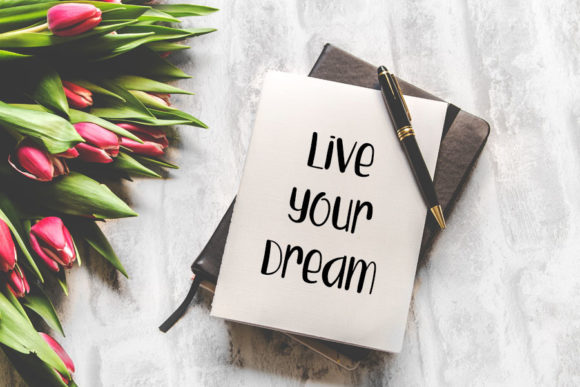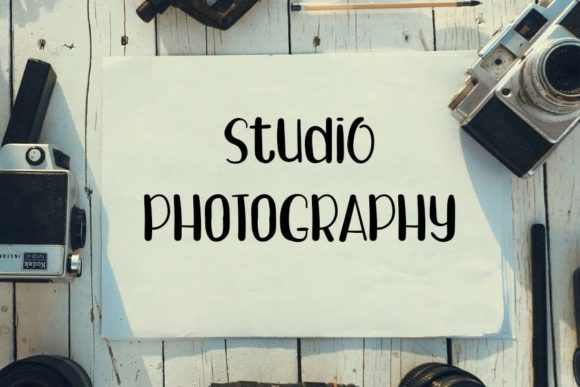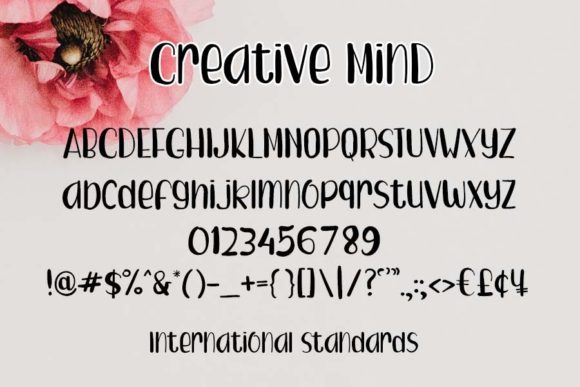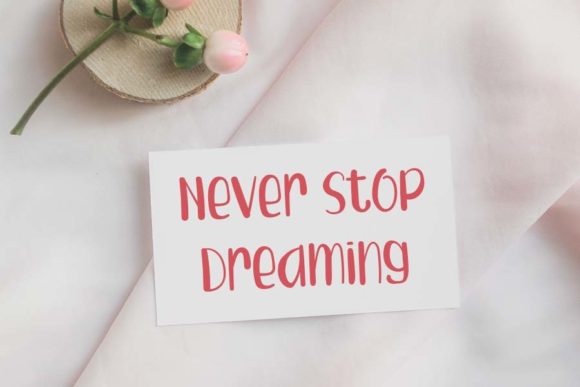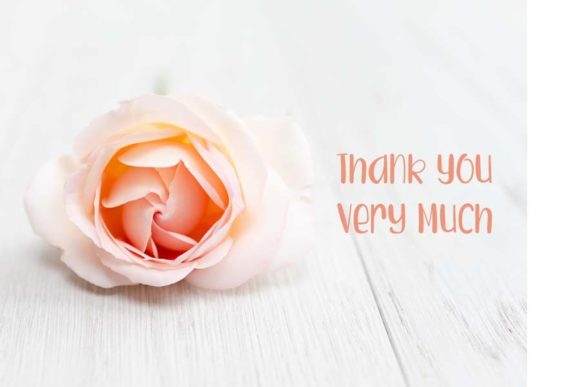
Introducing Creative Mind Font: The Ultimate Handwritten Font for Designers and Crafters
Are you tired of using the same old fonts in your designs? Do you want to add a touch of personality and whimsy to your projects? Look no further than Creative Mind Font, a cute and friendly handwritten font that’s sure to bring your designs to life.
What is Creative Mind Font?
Creative Mind Font is a unique and charming handwritten font that’s perfect for designers and crafters who want to add a personal touch to their work. With its joyful and sweet appearance, this font is ideal for a variety of design ideas, from invitations and greeting cards to branding and packaging.
Key Features of Creative Mind Font
- Cute and Friendly Design: Creative Mind Font features a playful and approachable design that’s sure to capture the attention of your audience.
- Handwritten Style: This font boasts a beautiful handwritten style that’s perfect for adding a personal touch to your designs.
- Versatile: Creative Mind Font looks great on a variety of design ideas, from digital projects to print materials.
- Easily Readable: Despite its playful design, Creative Mind Font is easy to read, making it perfect for body text and headings.
Uses for Creative Mind Font
Creative Mind Font is a versatile font that can be used in a variety of design projects, including:
- Invitations and Greeting Cards: Add a personal touch to your invitations and greeting cards with Creative Mind Font.
- Branding and Packaging: Use Creative Mind Font to create unique and eye-catching branding and packaging designs.
- Digital Projects: Creative Mind Font is perfect for digital projects, such as social media graphics, blog posts, and email newsletters.
- Crafting and Scrapbooking: Add a touch of personality to your crafting and scrapbooking projects with Creative Mind Font.
Why Choose Creative Mind Font?
With so many fonts available, why choose Creative Mind Font? Here are just a few reasons:
- Unique Design: Creative Mind Font features a unique and charming design that’s sure to stand out from the crowd.
Tips for Using Creative Mind Font
Here are a few tips for using Creative Mind Font in your designs:
- Pair with Other Fonts: Creative Mind Font looks great when paired with other fonts, such as sans-serif fonts or script fonts.
- Experiment with Colors: Try out different colors and color combinations to add visual interest to your designs.
- Use in Combination with Images: Creative Mind Font looks great when used in combination with images, such as photographs or illustrations.